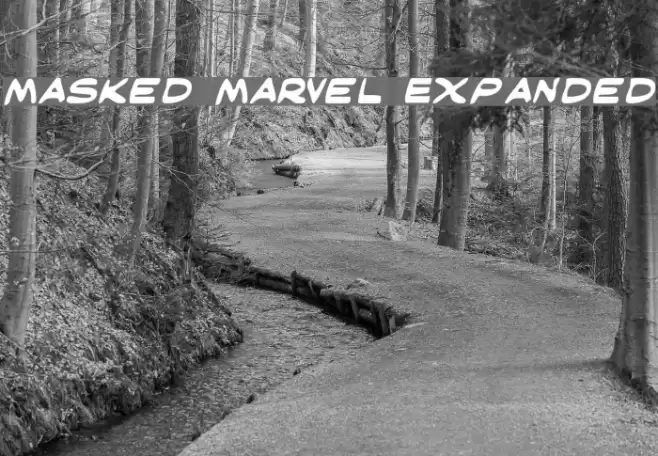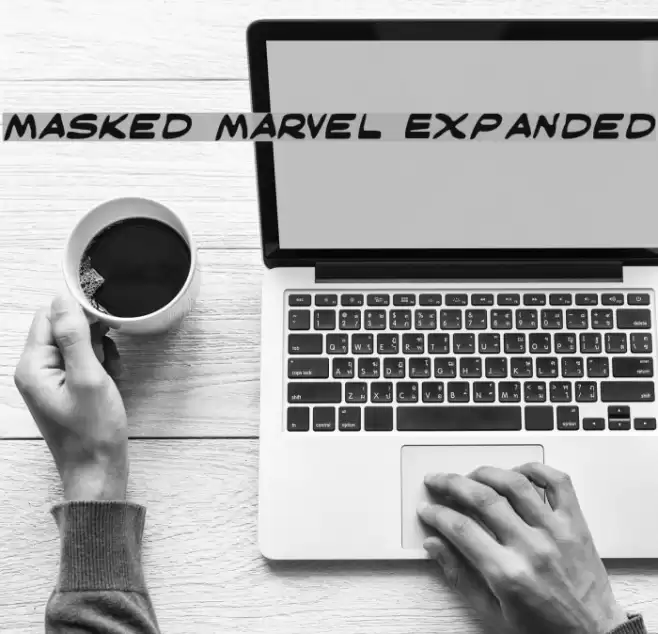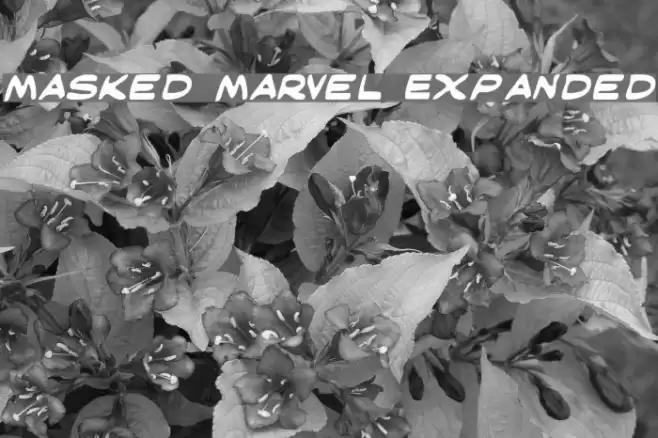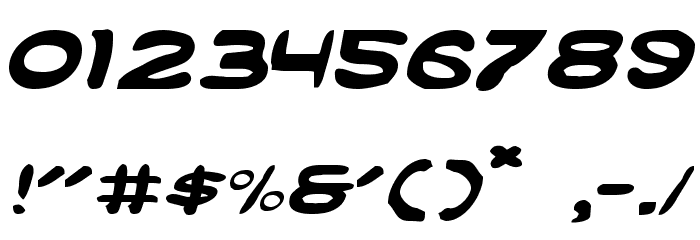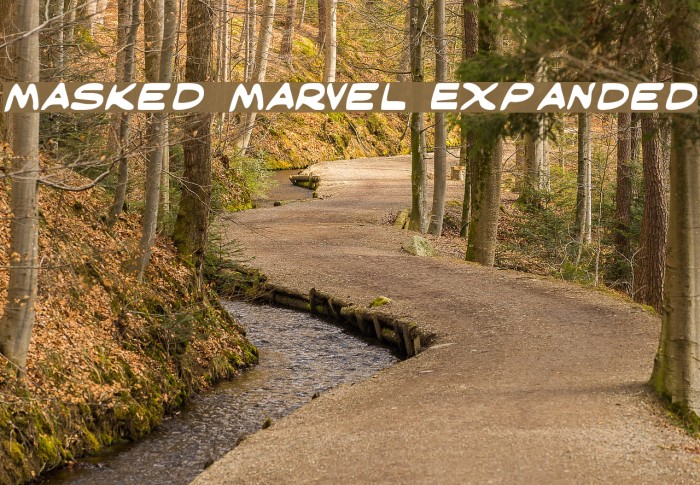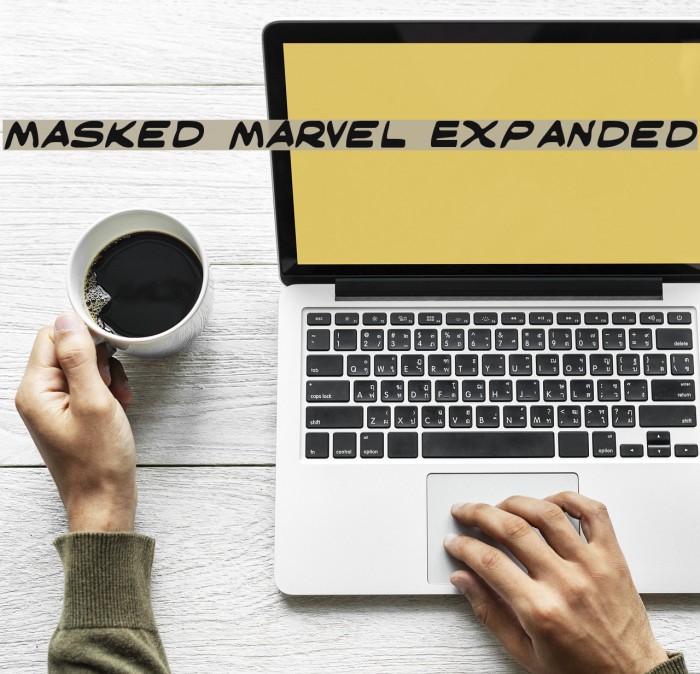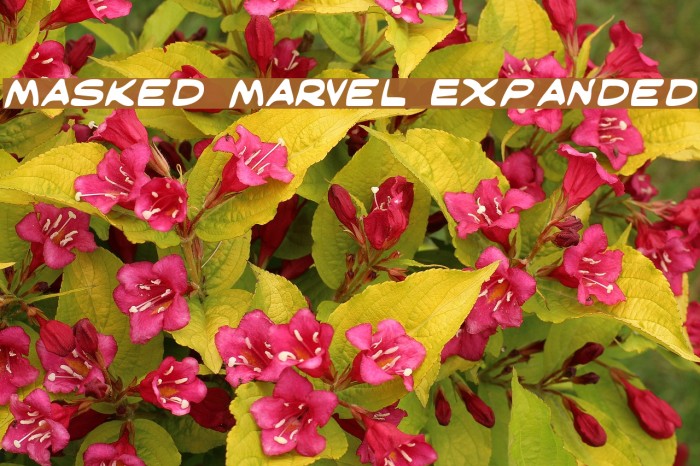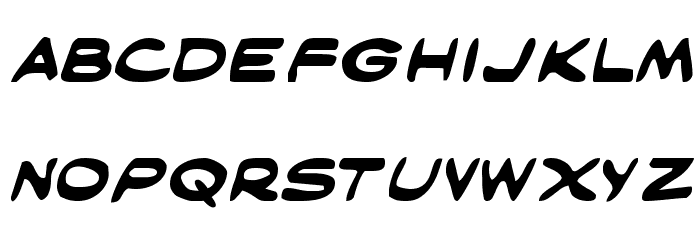
Masked Marvel Expanded Font
Masked Marvel Expanded Description
This font features a bold and dynamic style with a slightly italicized slant, giving it a sense of motion and energy. The characters are rounded and smooth, with a consistent stroke width that adds to its modern appeal. The uppercase and lowercase letters maintain a uniform appearance, while the numerals are clear and easily distinguishable. Special characters are included, enhancing its versatility for various design needs. The overall look is sleek and contemporary, making it suitable for projects that require a strong visual impact.
A bold, dynamic font with a modern, slightly italicized style from Script fonts.
- Proposed Projects: Ideal for sports branding, dynamic posters, modern advertising, and eye-catching headlines.